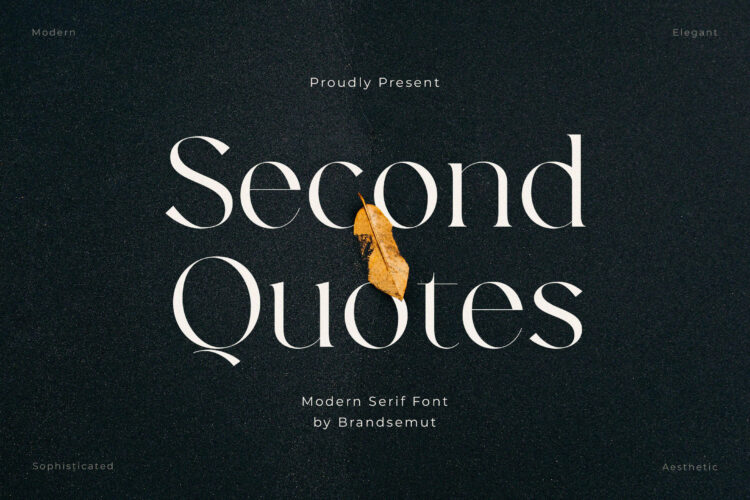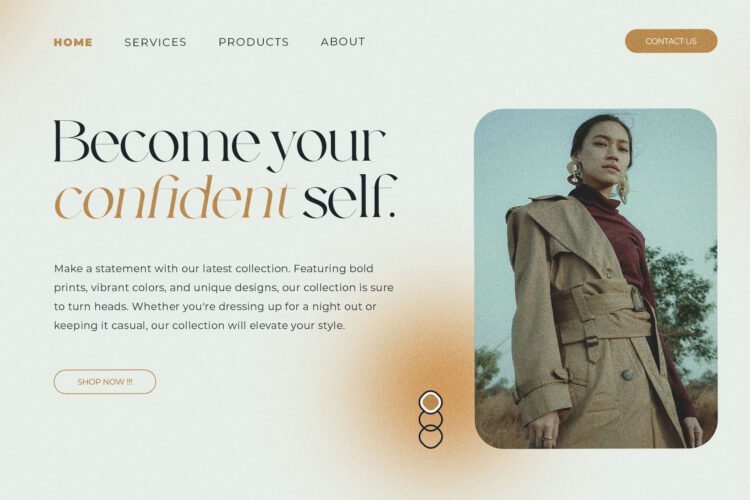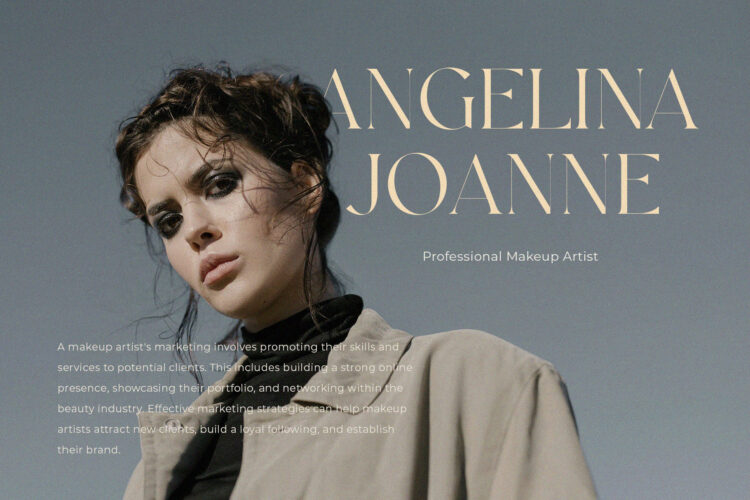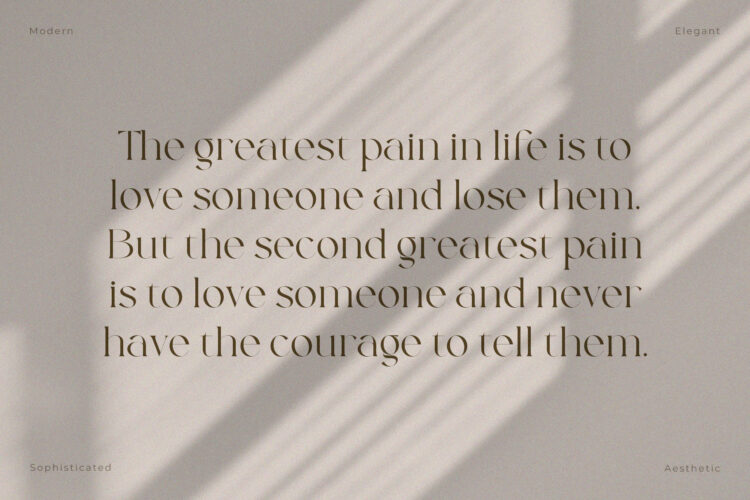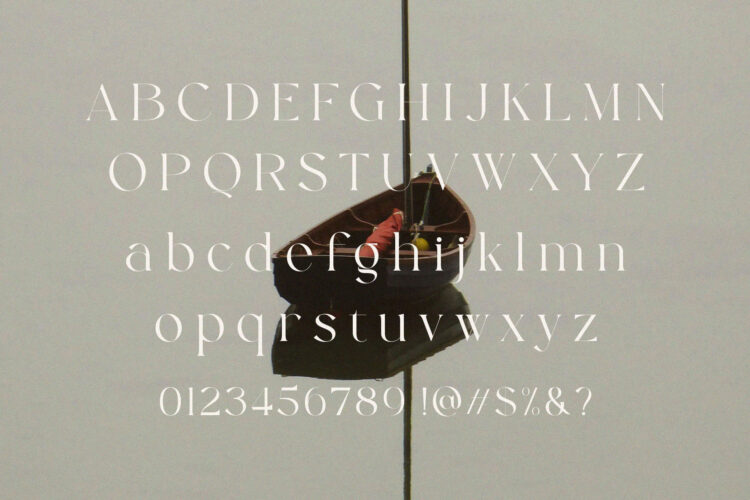
Introducing Second Quotes Modern Elegant Serif.
Second Quotes is a modern and classy typeface, best used as a display for headings, logos, branding, magazines, product packaging and invitations. Second Quotes come with clean lines and smooth curves give any project an extra touch of class.